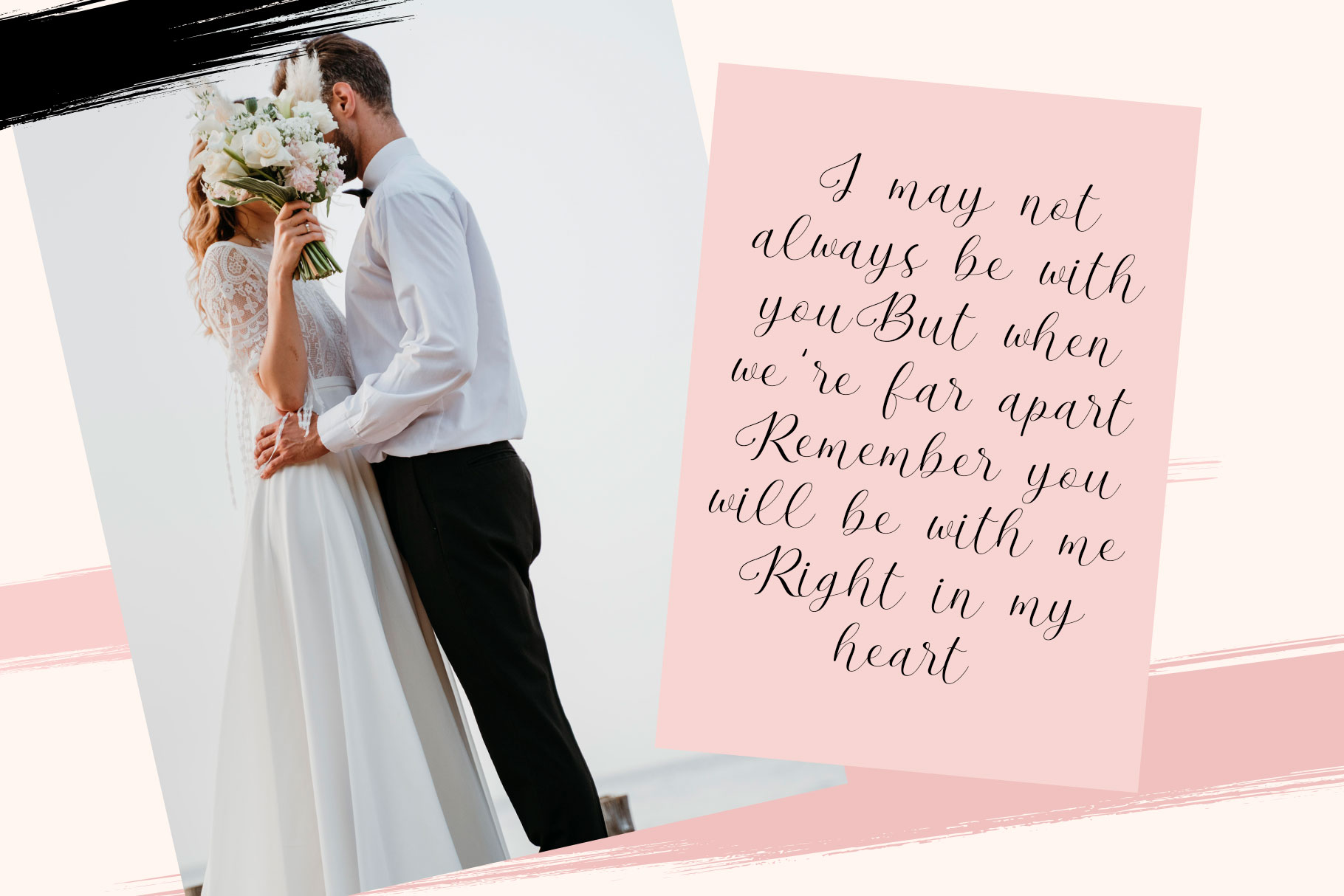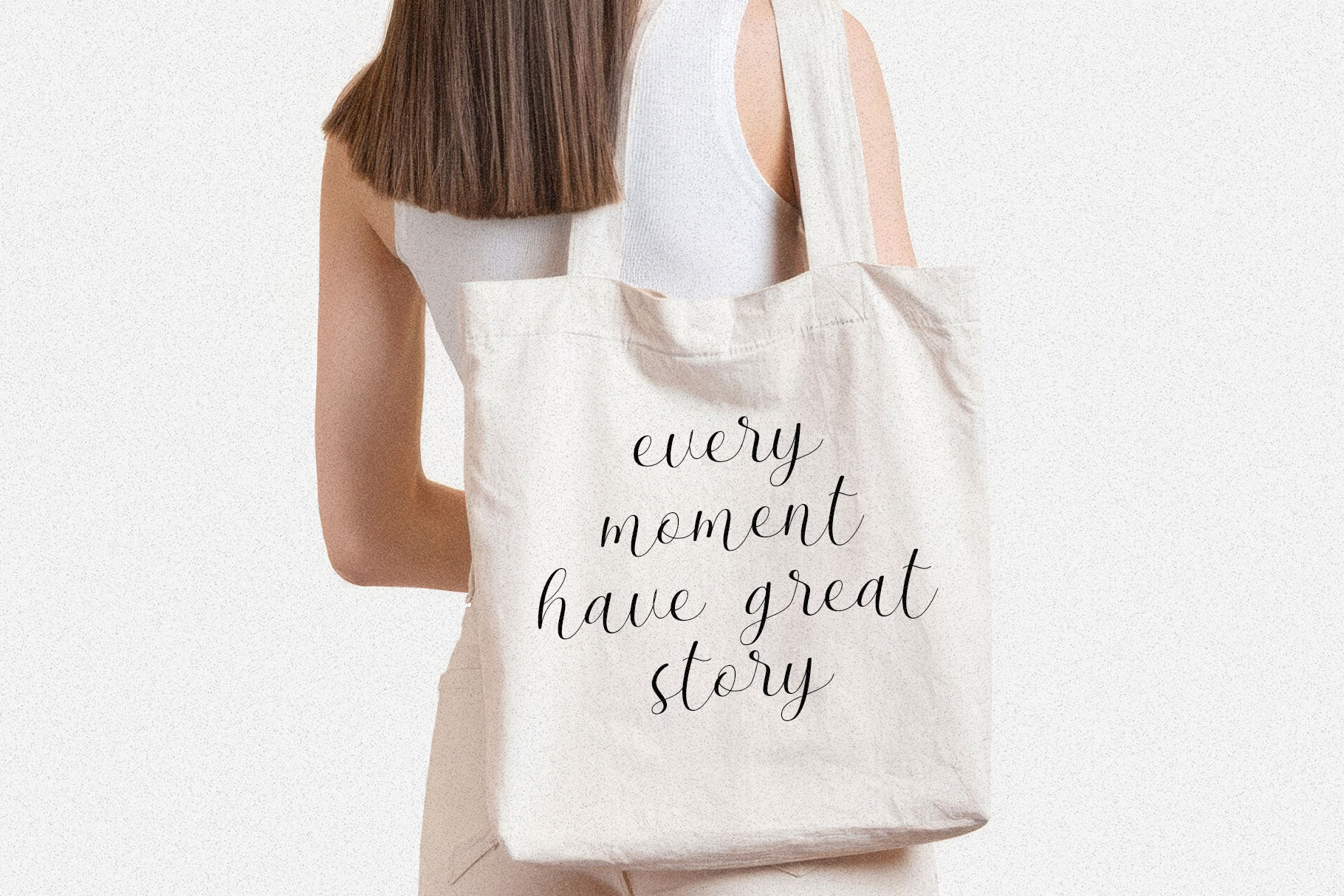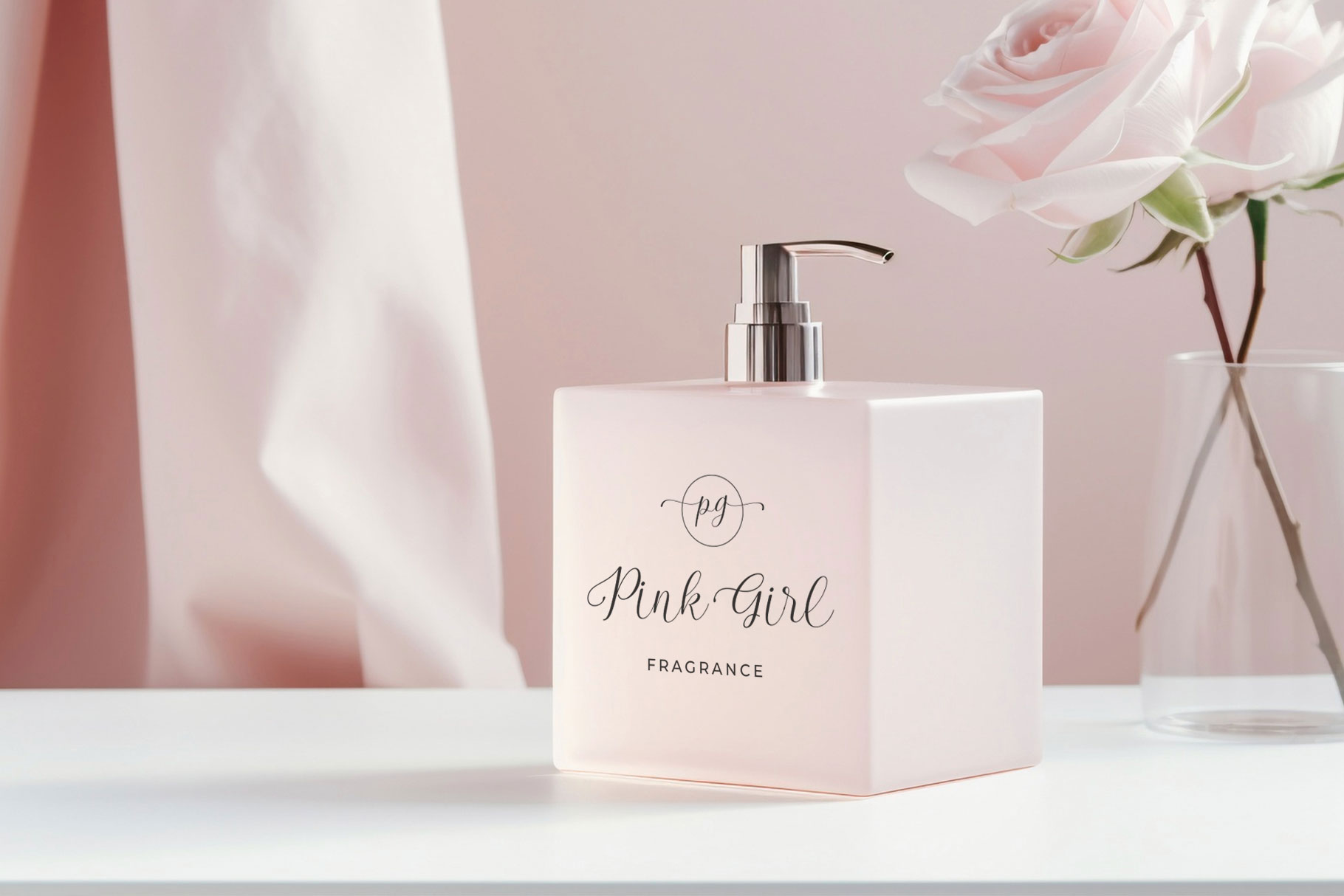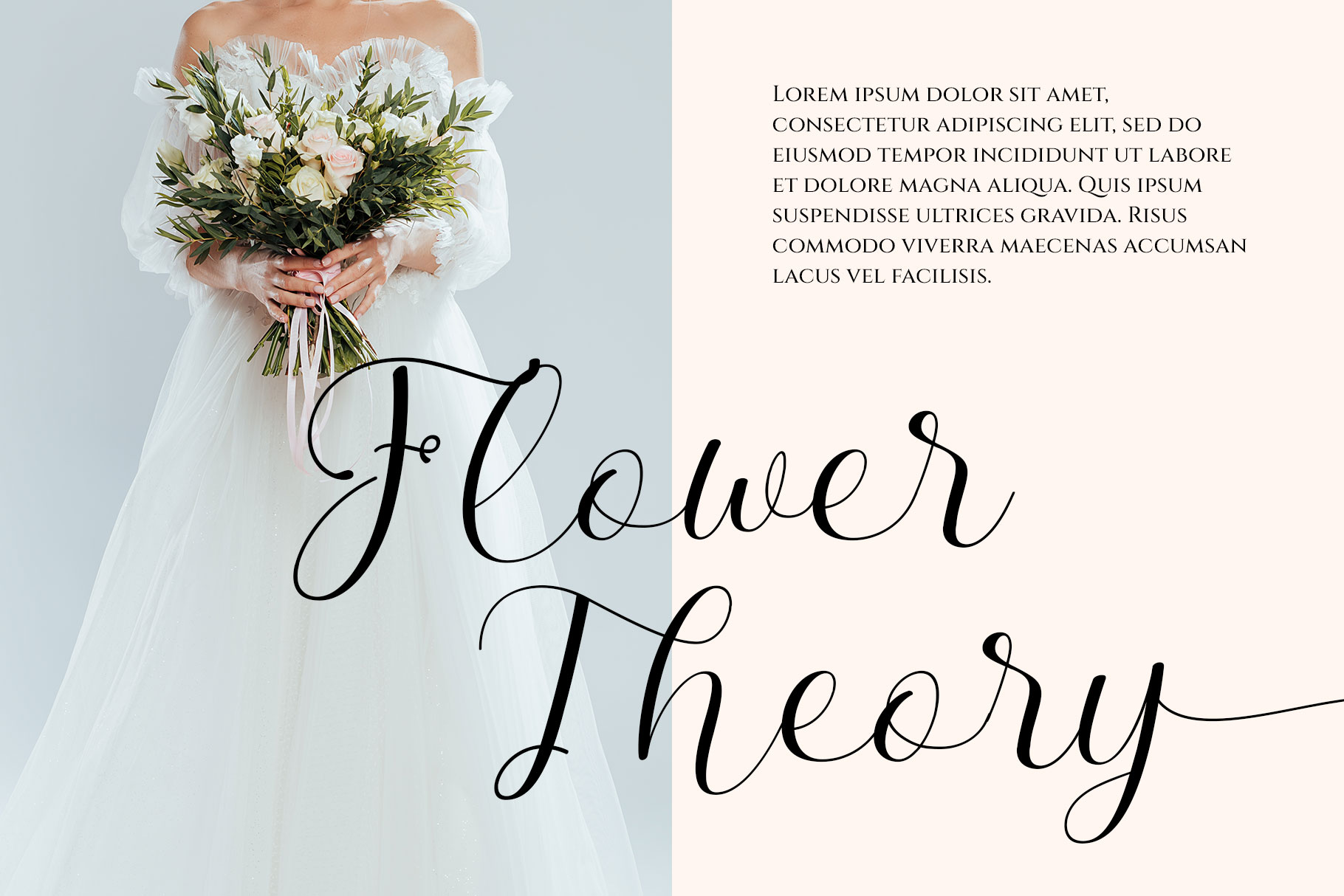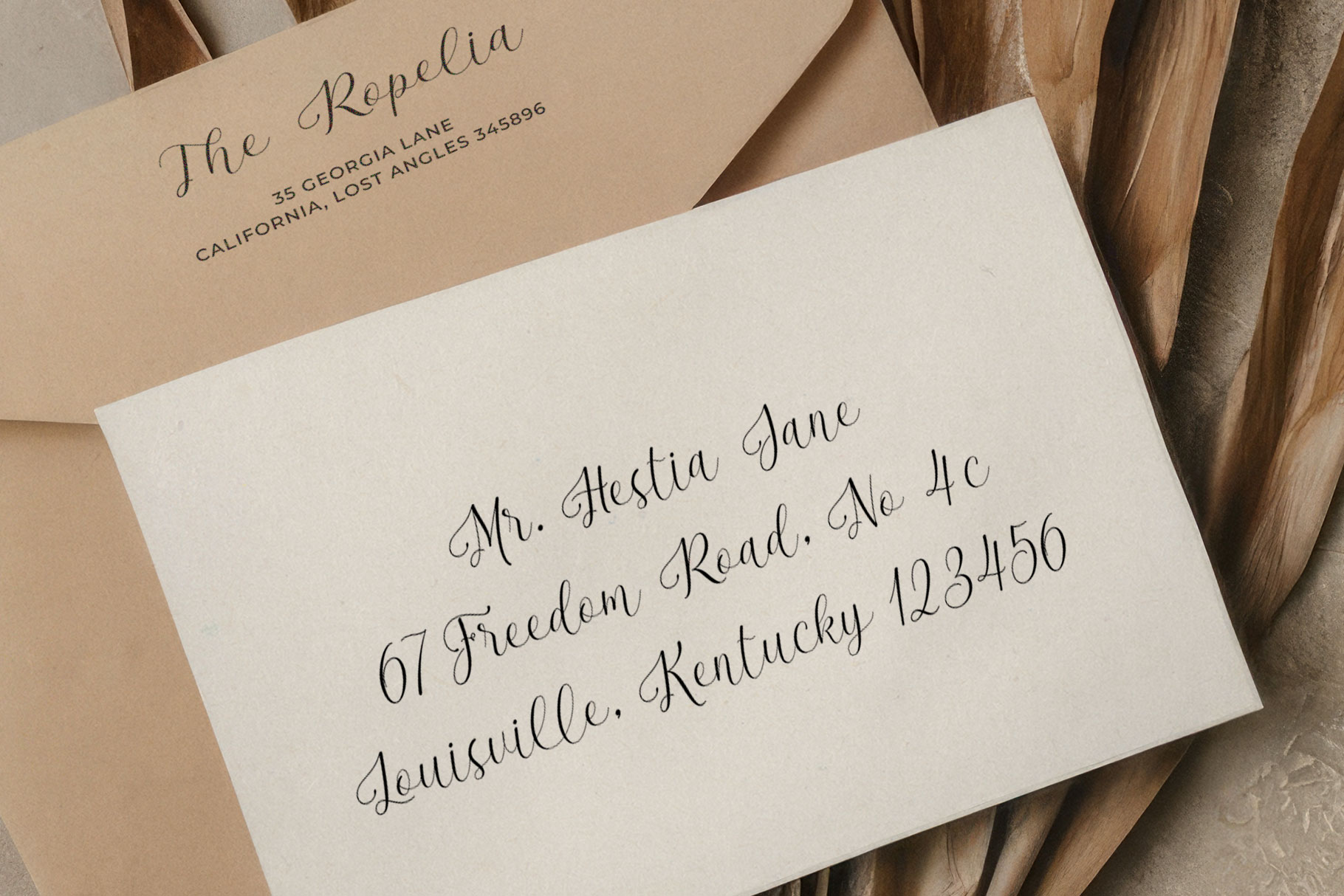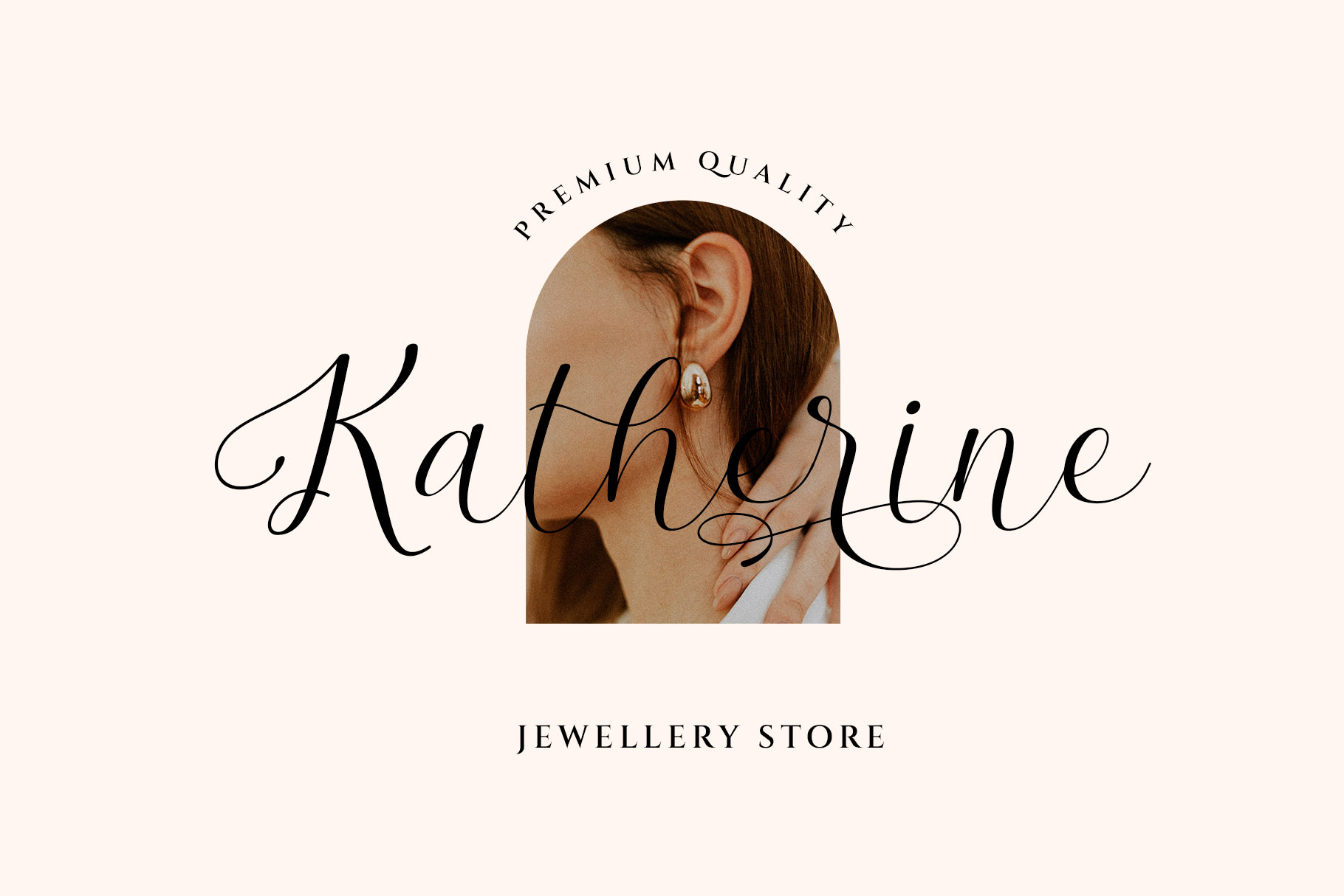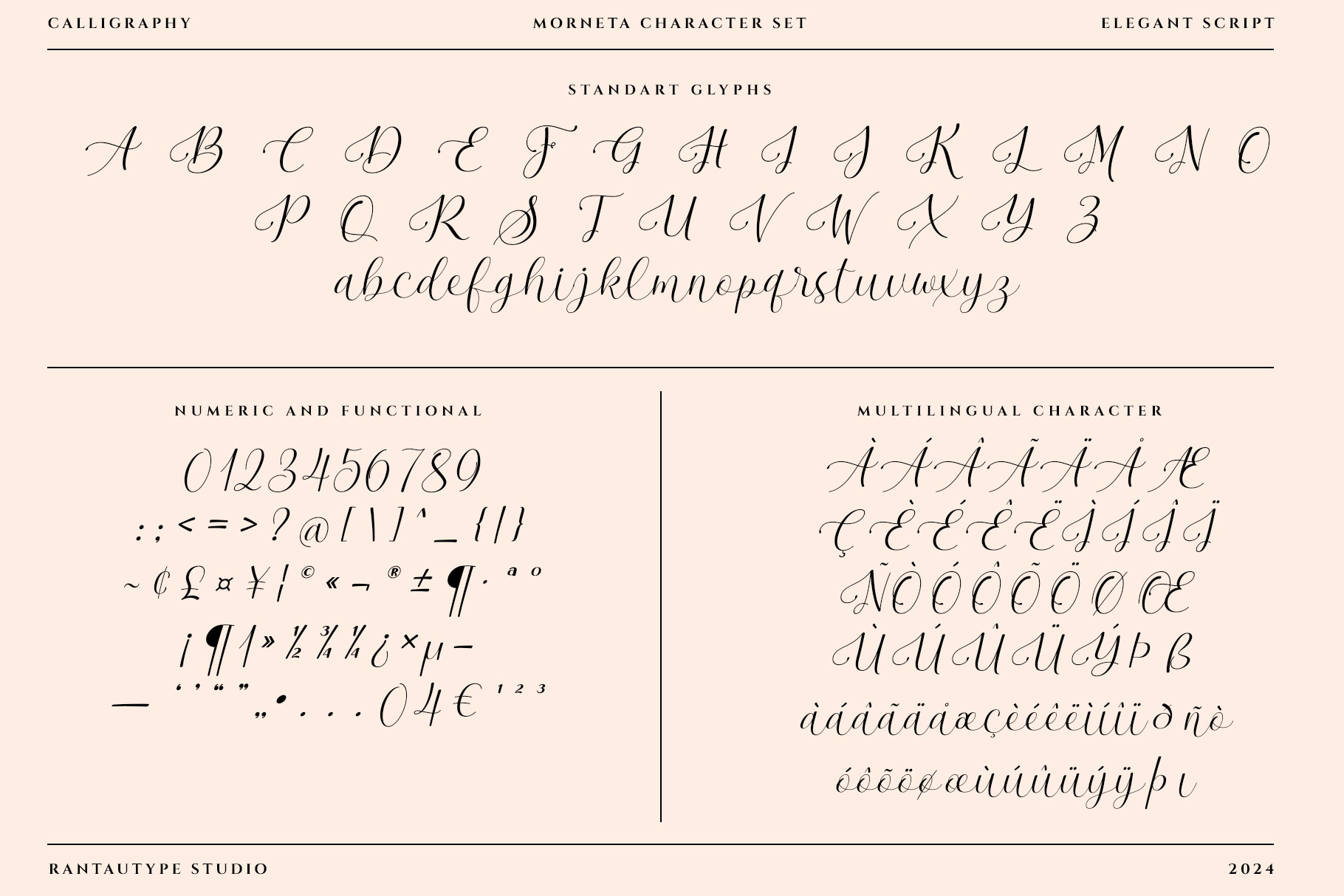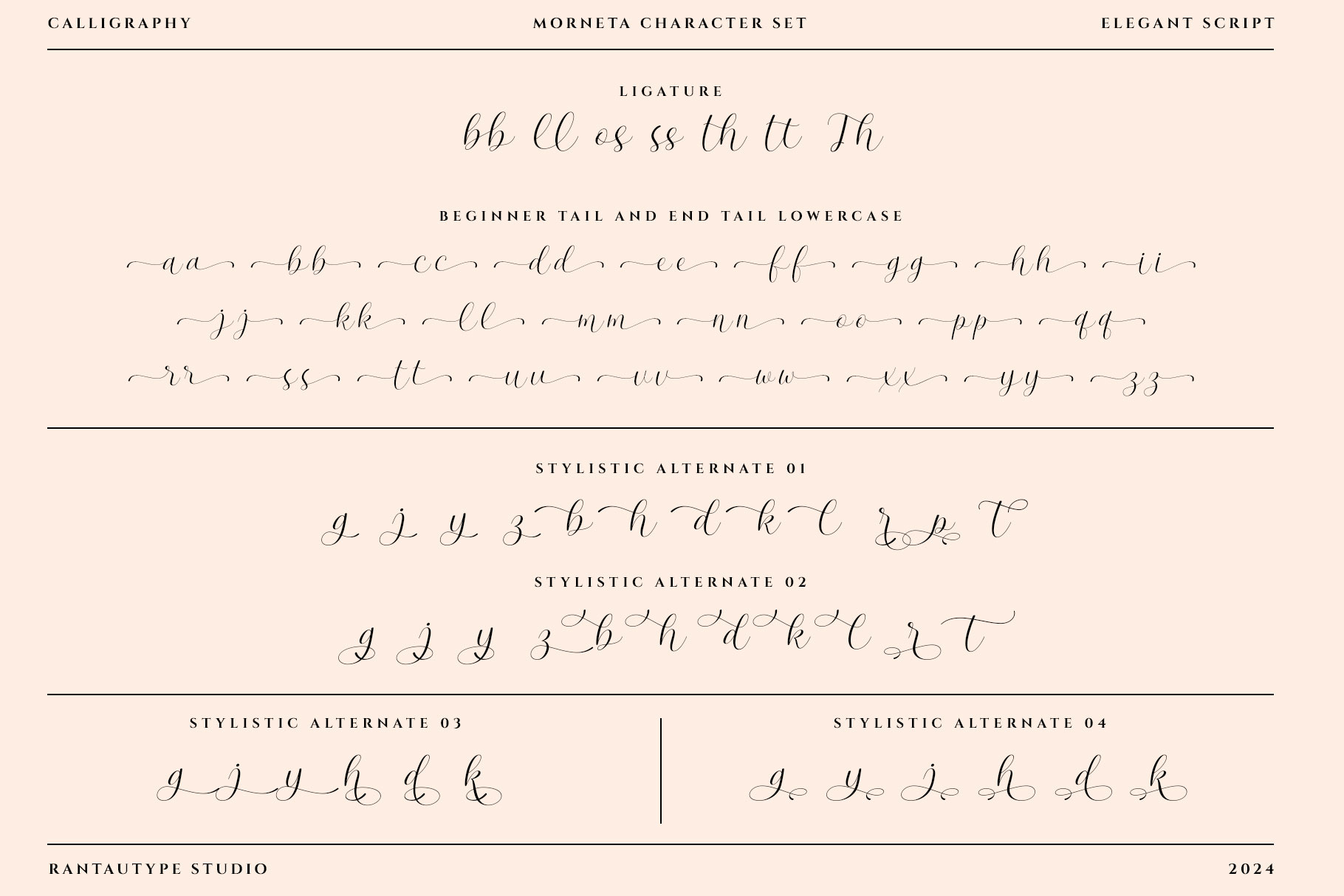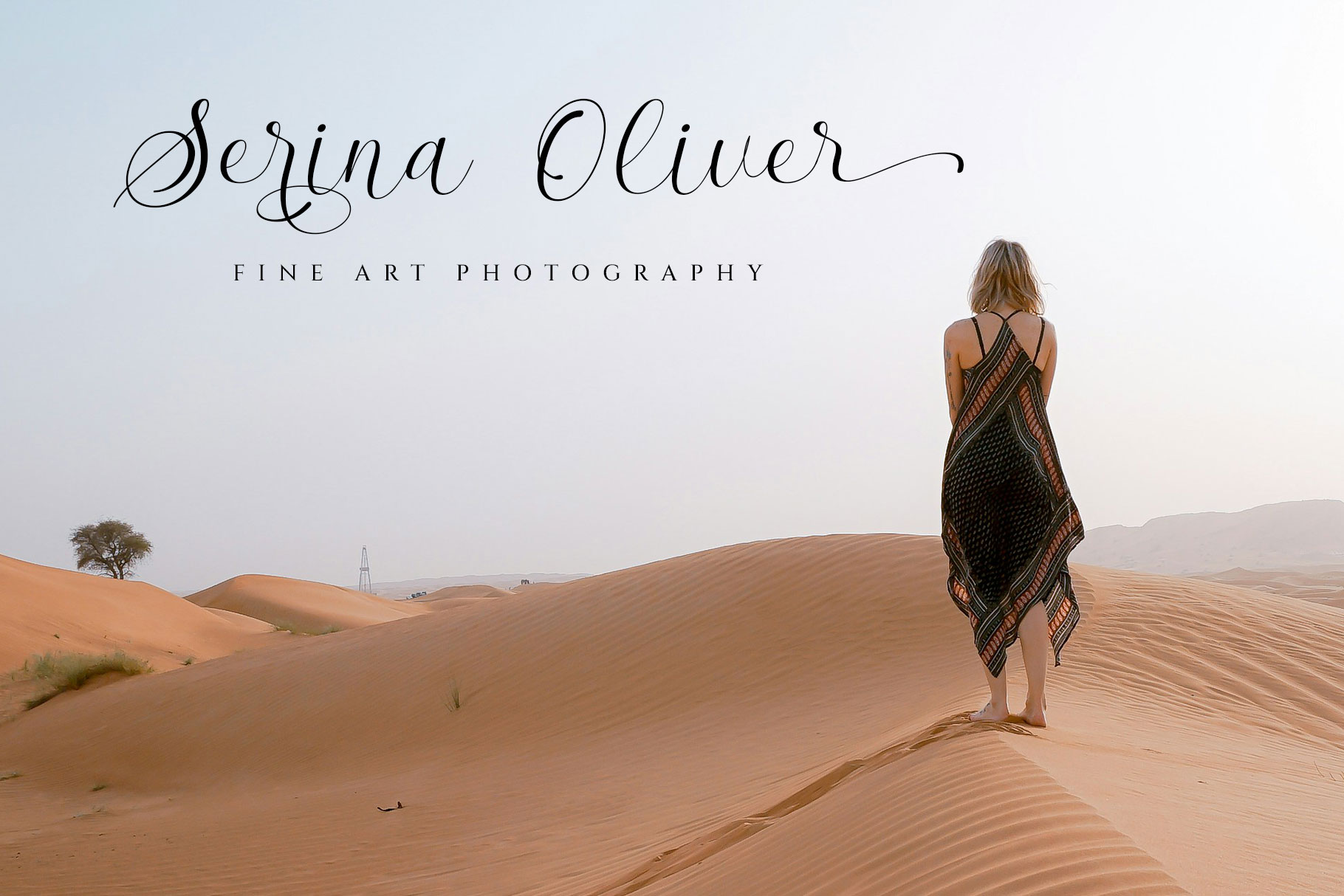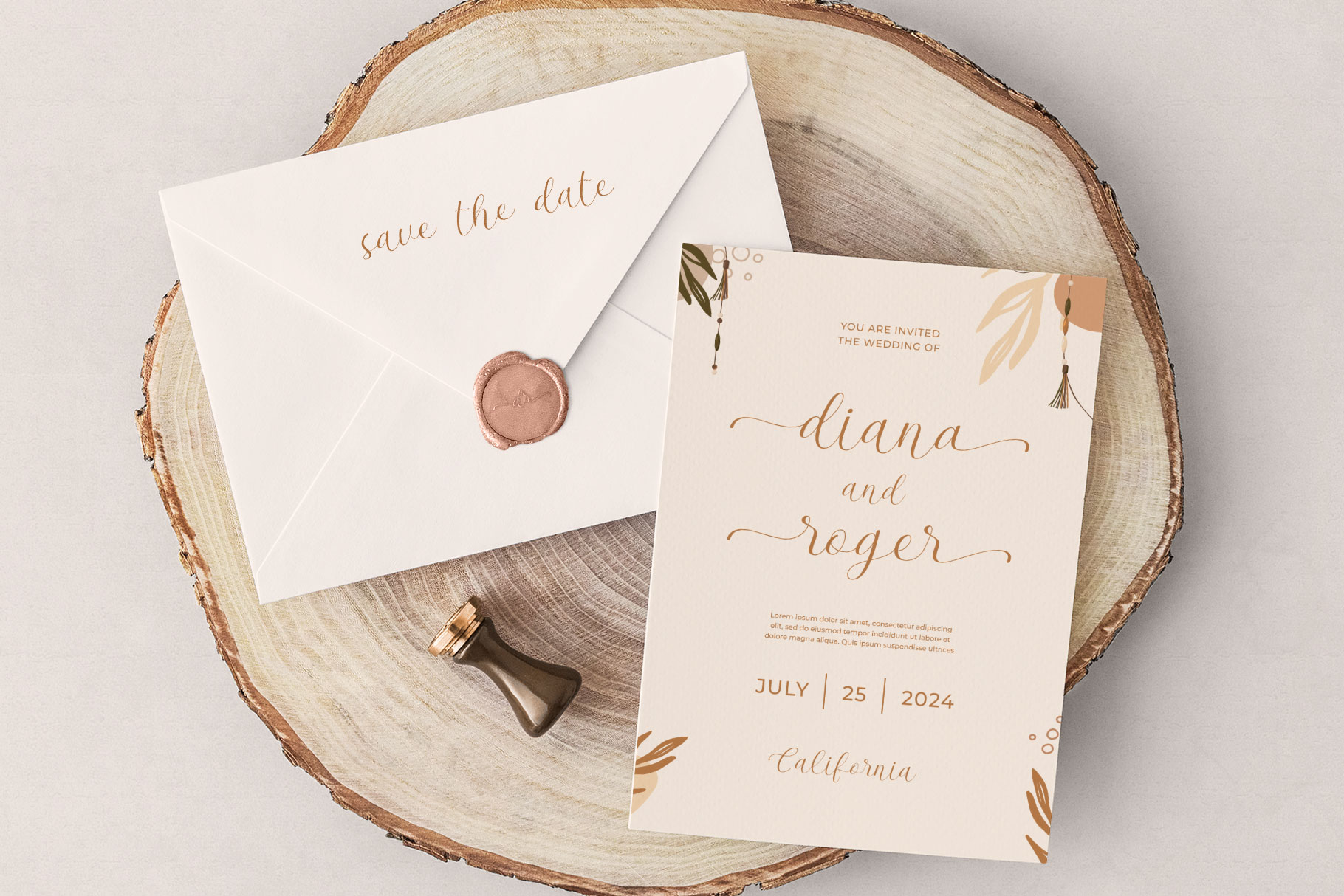
Morneta Calligraphy Script Font
Morneta is calligraphy script font inspire by wedding moment visual design. Morneta come with delicate curves and refined details create a sense of sophistication and femininity.
Morneta is a beautiful choice for any creative endeavor, chic, lifestyle design such as logos, title, watermark on photography, cover, branding, display and magazine, wedding event, quotes, album cover, business card, corporate, business project and many other design project with script taste.